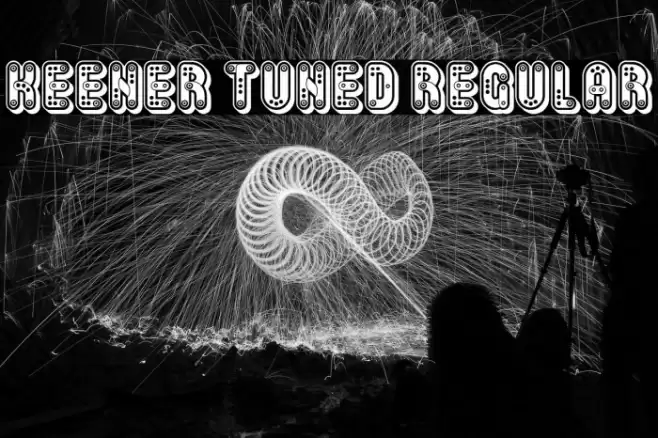
Keener Tuned Regular Font
Keener Tuned Regular Description
This font features a bold and playful design with a distinct decorative style. Each character is outlined with a thick black border, filled with a white interior, and adorned with circular cutouts that add a unique, eye-catching element. The letters are uniformly wide, giving the font a consistent and balanced appearance. The playful nature of the design makes it ideal for projects that require a fun and engaging visual impact. The font's boldness ensures readability while the decorative elements provide a touch of whimsy.
A bold, decorative font with playful circular cutouts and thick outlines from Decorative fonts.
- Proposed Projects: Ideal for children's book covers, playful branding, party invitations, and eye-catching posters.
- Overall Style: Playful, Decorative